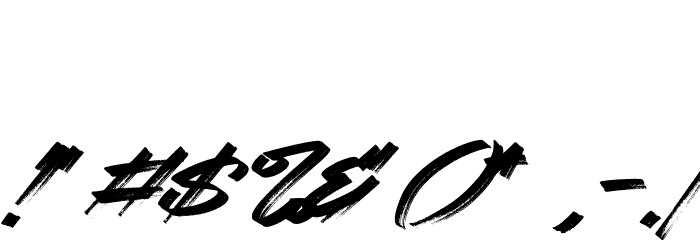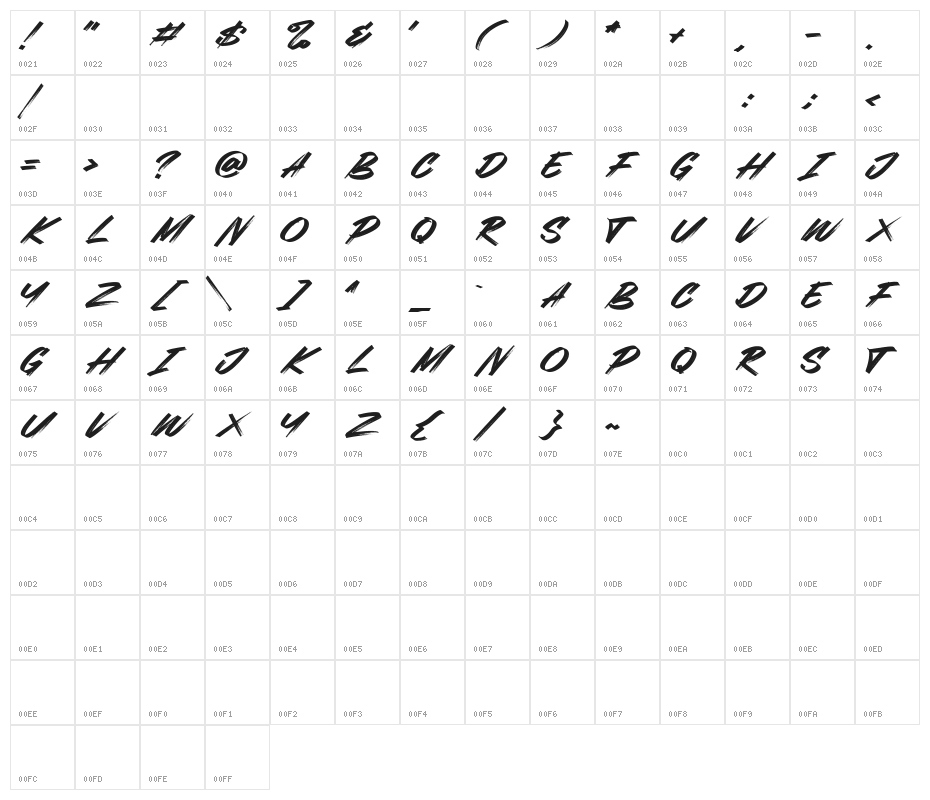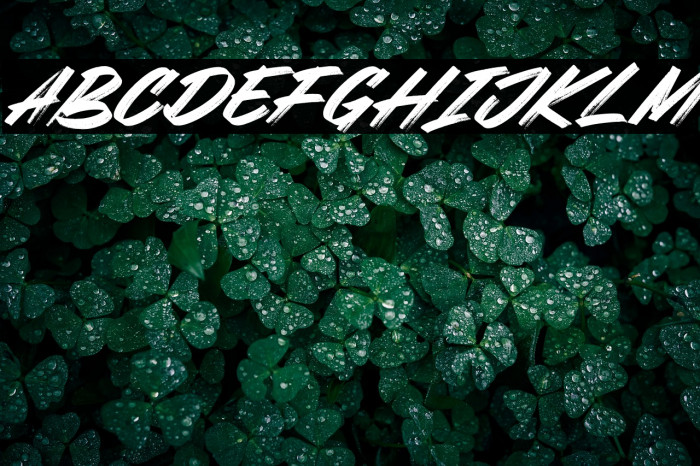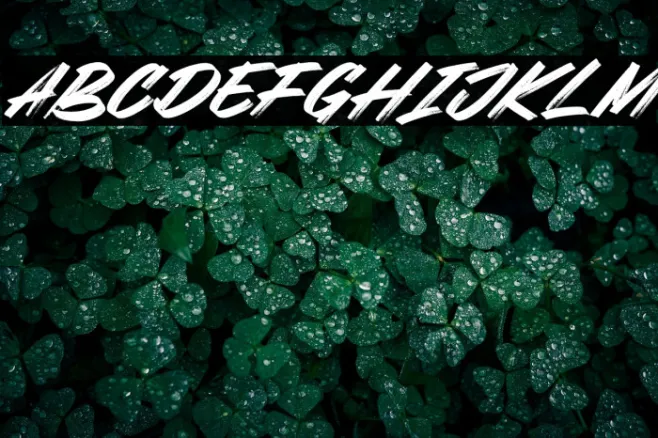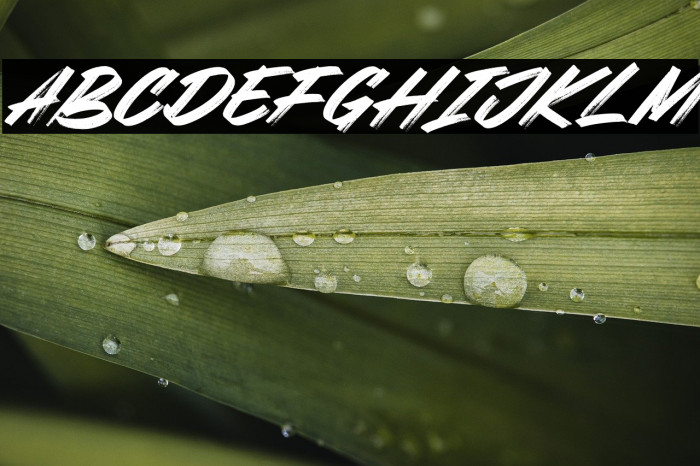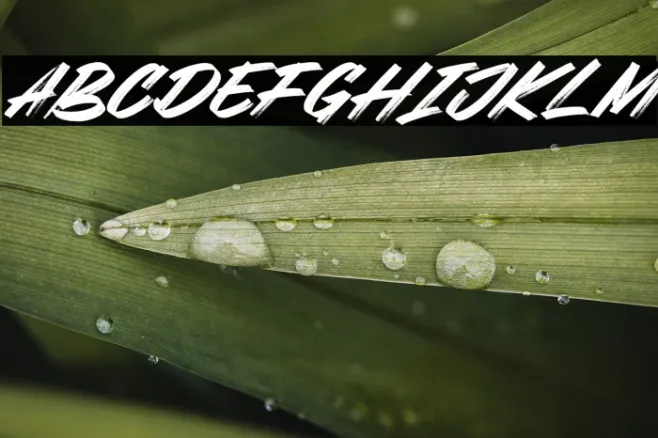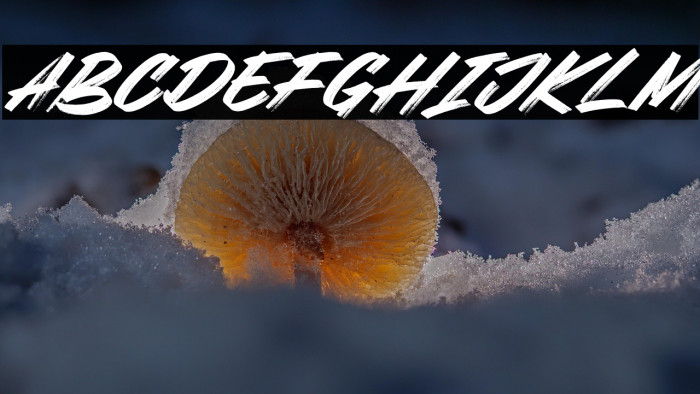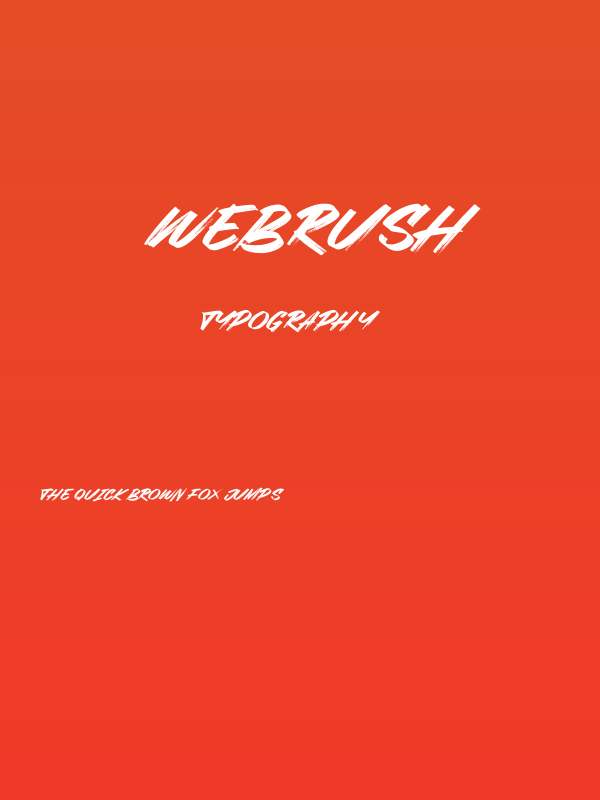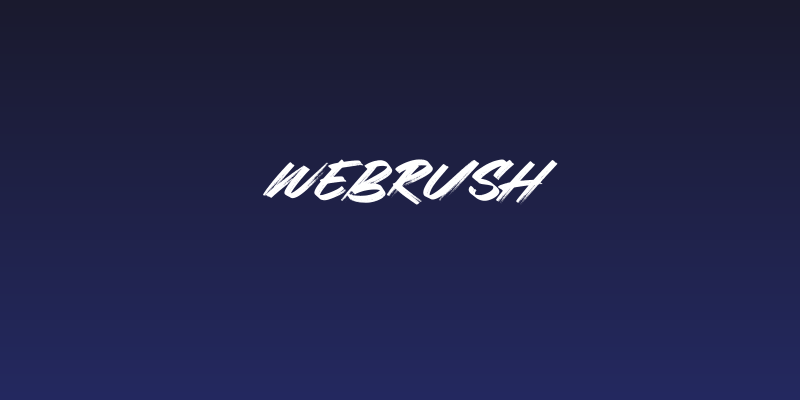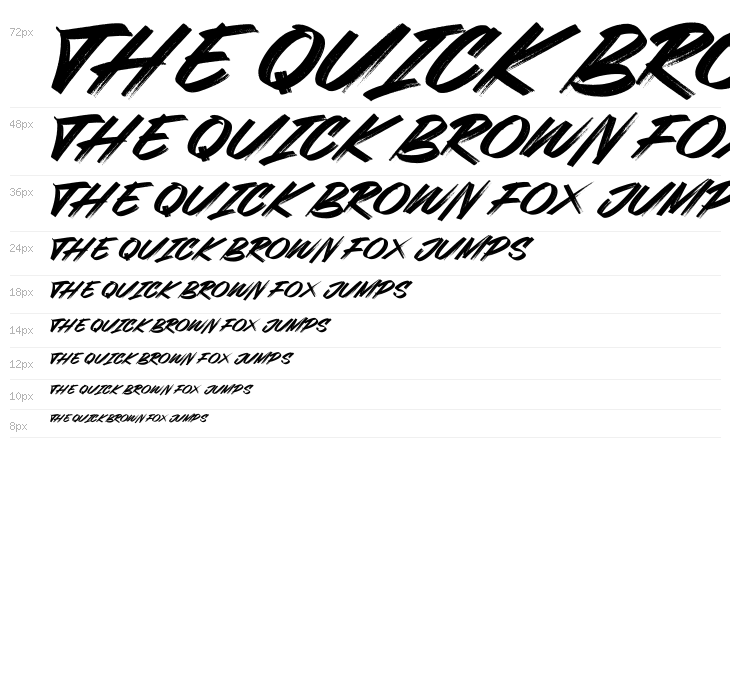
Webrush Font
Webrush Description
This font features a bold, energetic brush style that conveys a sense of dynamism and movement. The strokes are thick and textured, giving the appearance of being hand-painted with a brush. Each character is slightly slanted, adding to the sense of speed and fluidity. The uppercase and lowercase letters maintain a consistent style, with sharp angles and pointed edges that enhance the aggressive and modern look. The numbers and special characters follow the same design principles, ensuring a cohesive appearance across all glyphs. This font is ideal for projects that require a bold statement or an artistic touch.
| Proposed Projects | Ideal for branding, posters, album covers, sports team logos, and any design needing a bold, artistic flair. |